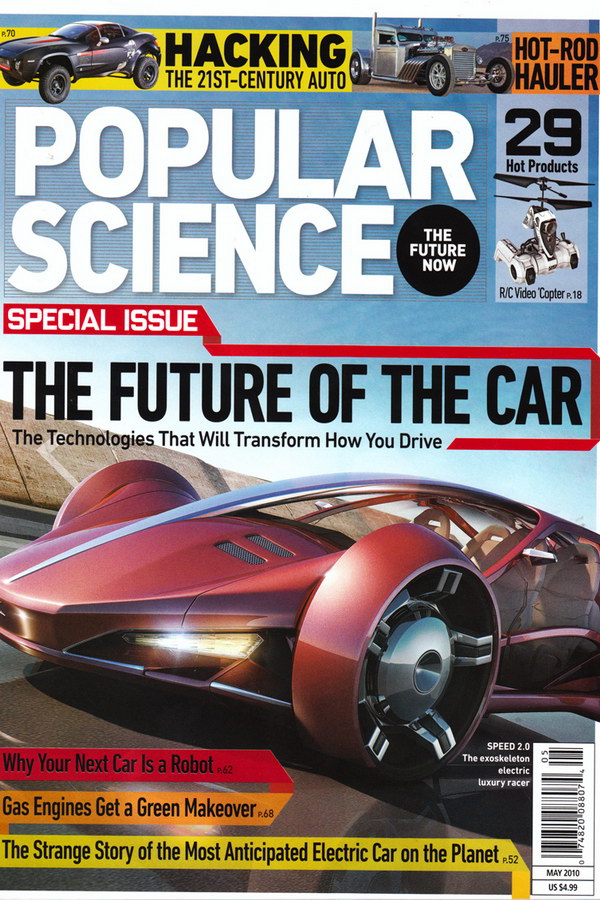
Popular Science Font
BookPopular Science, or PopSci, is a monthly magazine that covers the latest developments in science and technology, including gadgets, robotics, space exploration, and environmental issues. It has been in publication since 1872.
The Popular Science logo was most likely created using FF Din Pro Black, with minor adjustments made to the letter "C." This typeface was created by Albert-Jan Pool, a Dutch designer. The font is commercially available, and additional information can be found here.